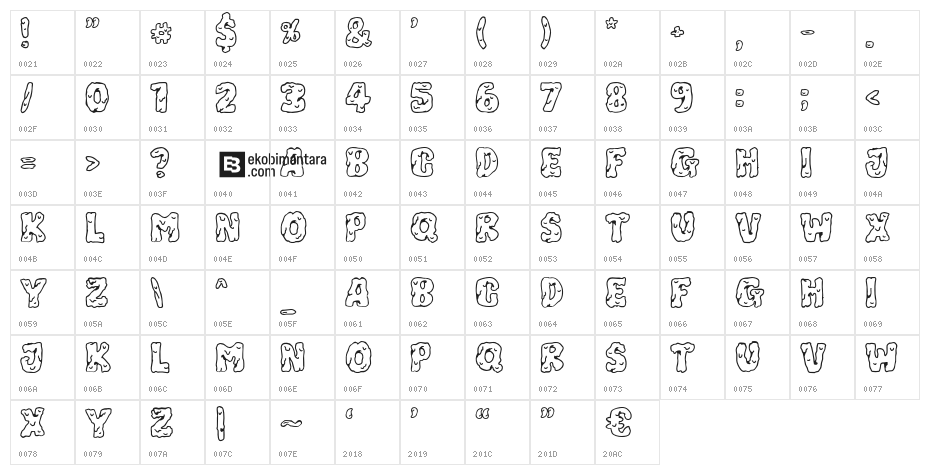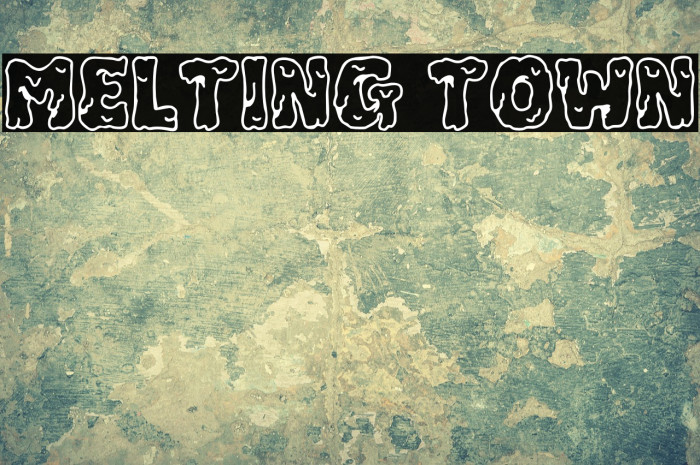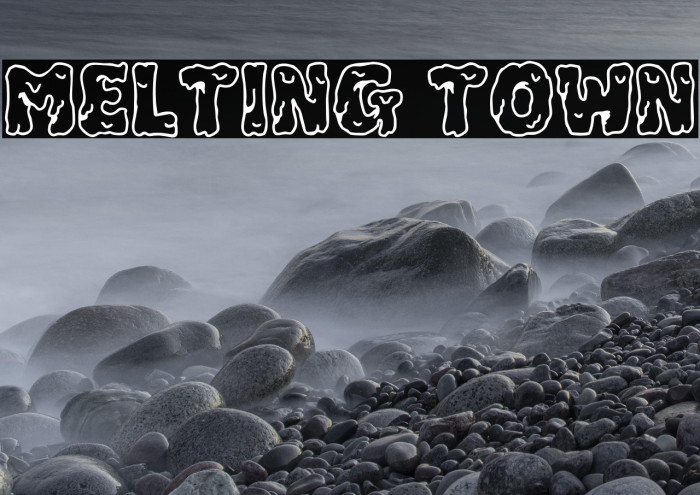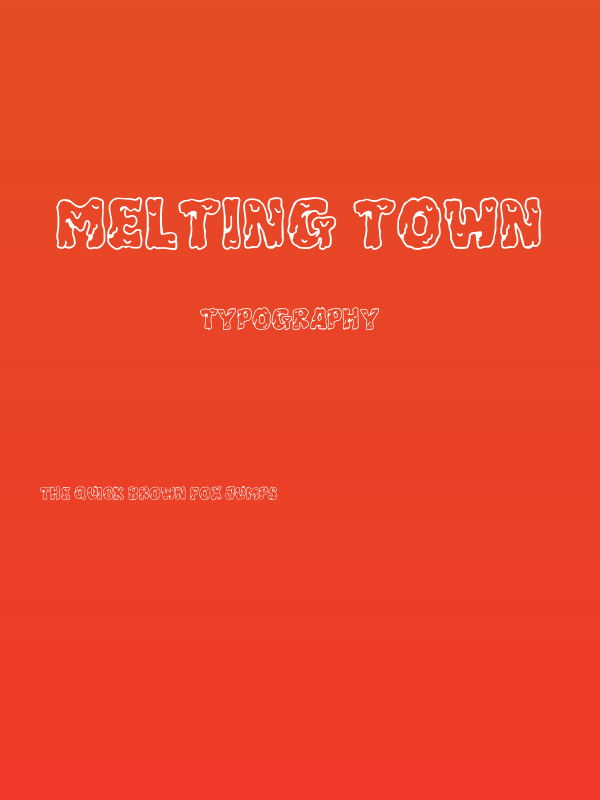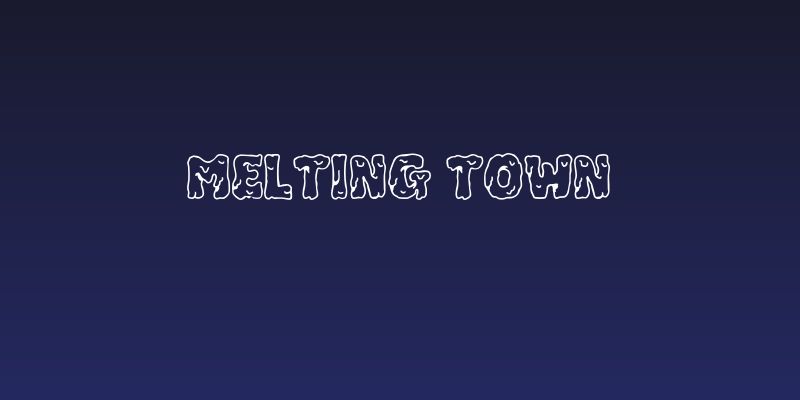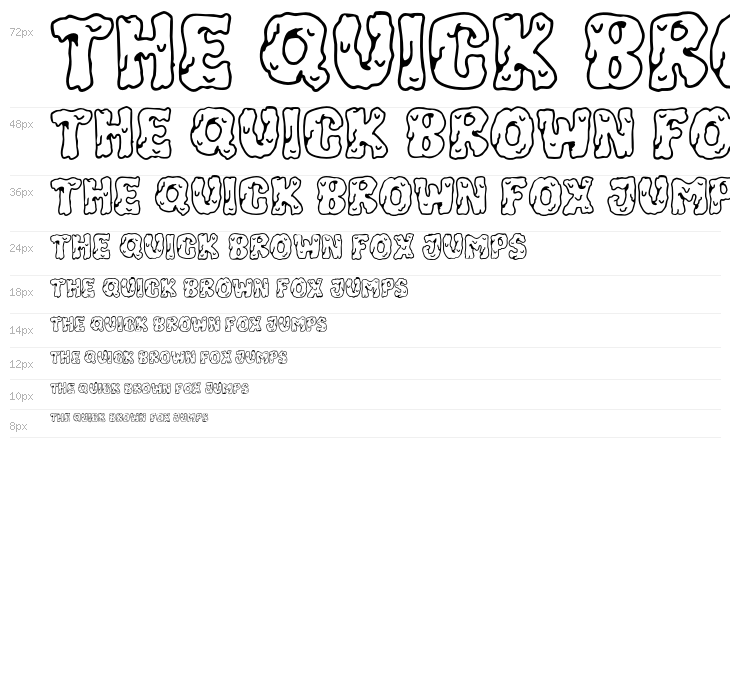
Melting Town Font
Melting Town Description
This font features a playful and whimsical design, reminiscent of melting or dripping elements. Each character appears as if it is made of a liquid substance, giving it a unique and dynamic appearance. The bold outlines and irregular shapes contribute to its eye-catching and fun aesthetic. It is highly decorative, making it suitable for creative and informal projects. The font maintains a consistent style across uppercase, lowercase, numbers, and special characters, ensuring a cohesive look.
Proposed ProjectsIdeal for children's book covers, party invitations, Halloween-themed designs, and playful branding.